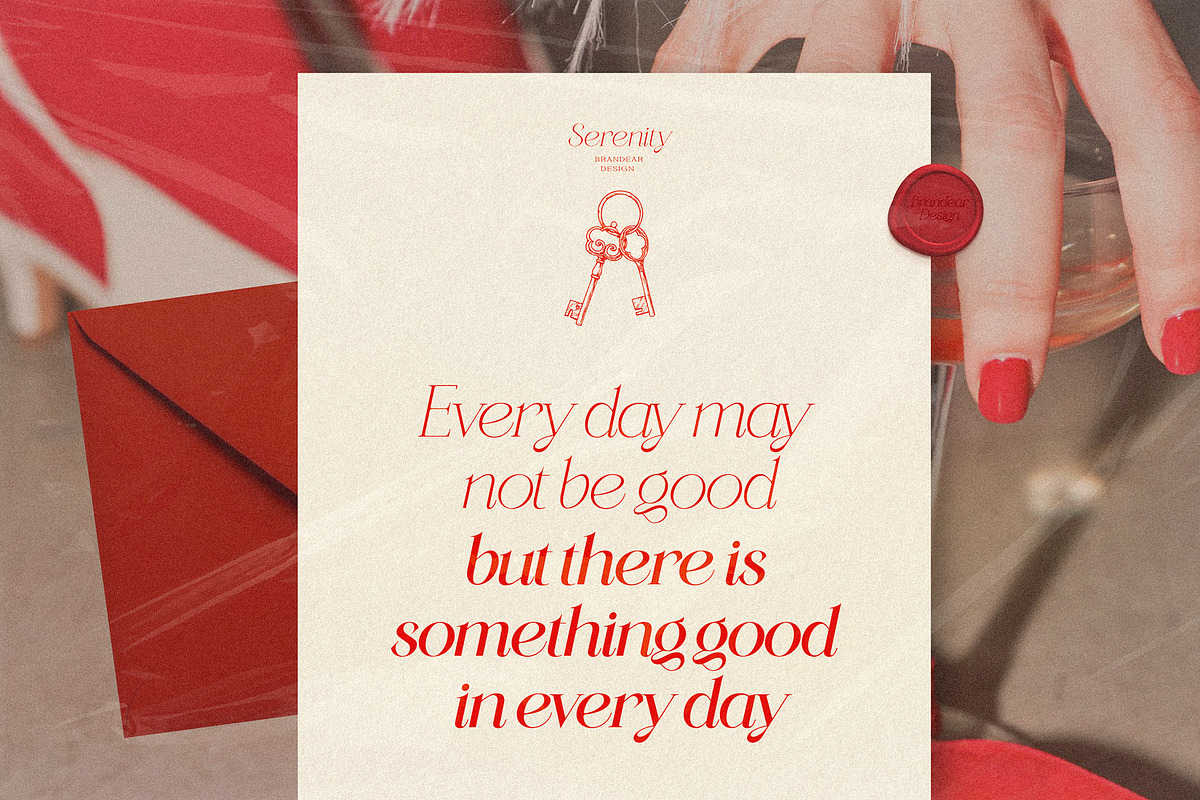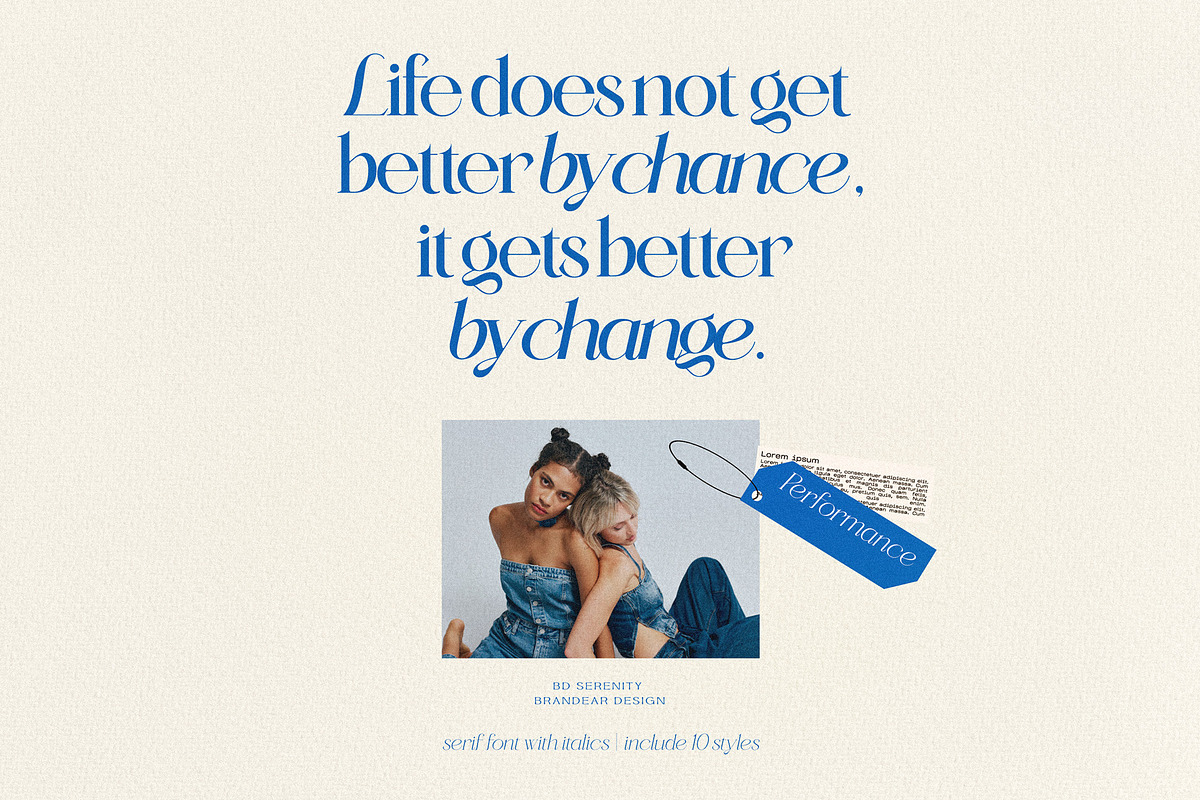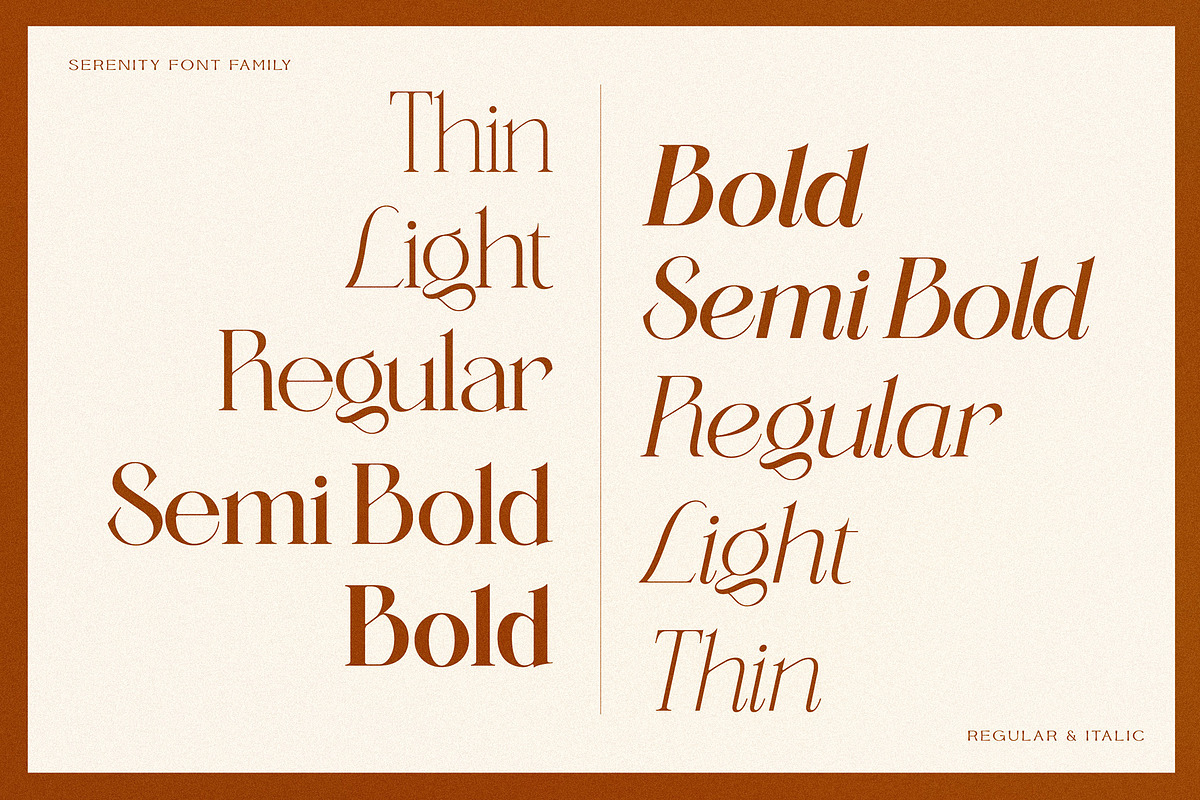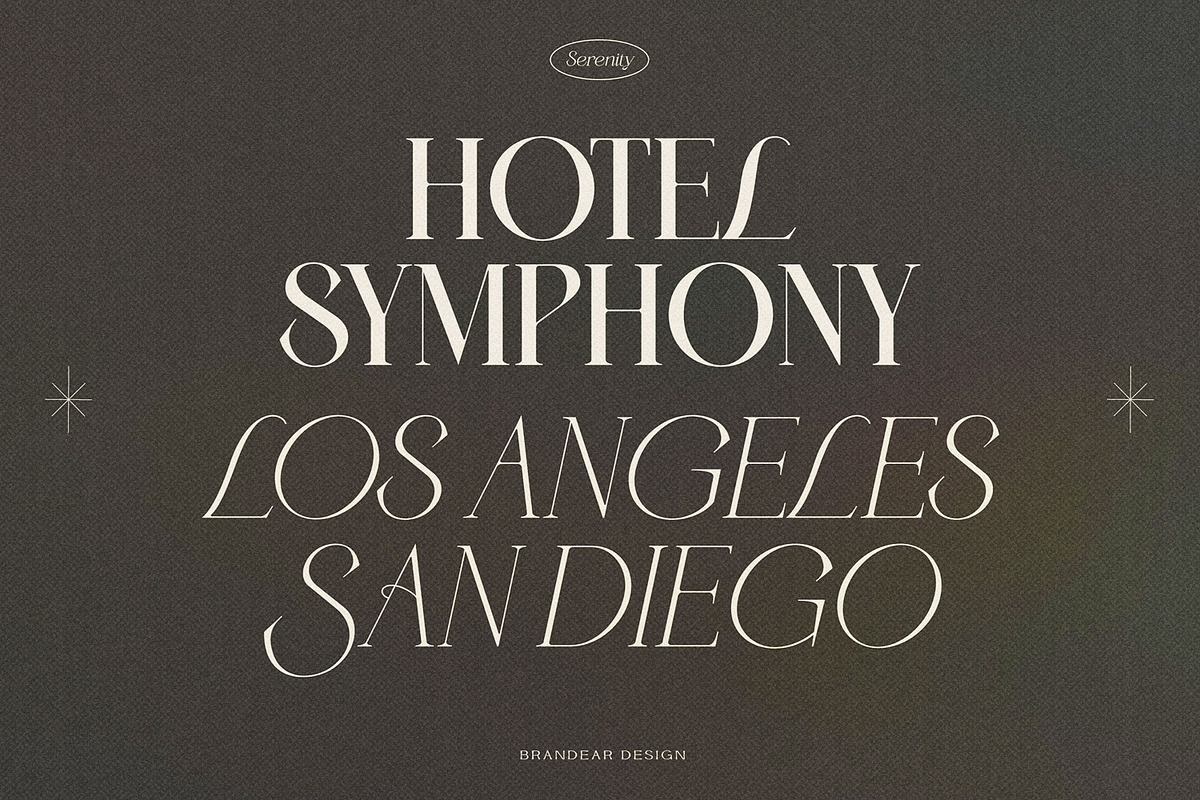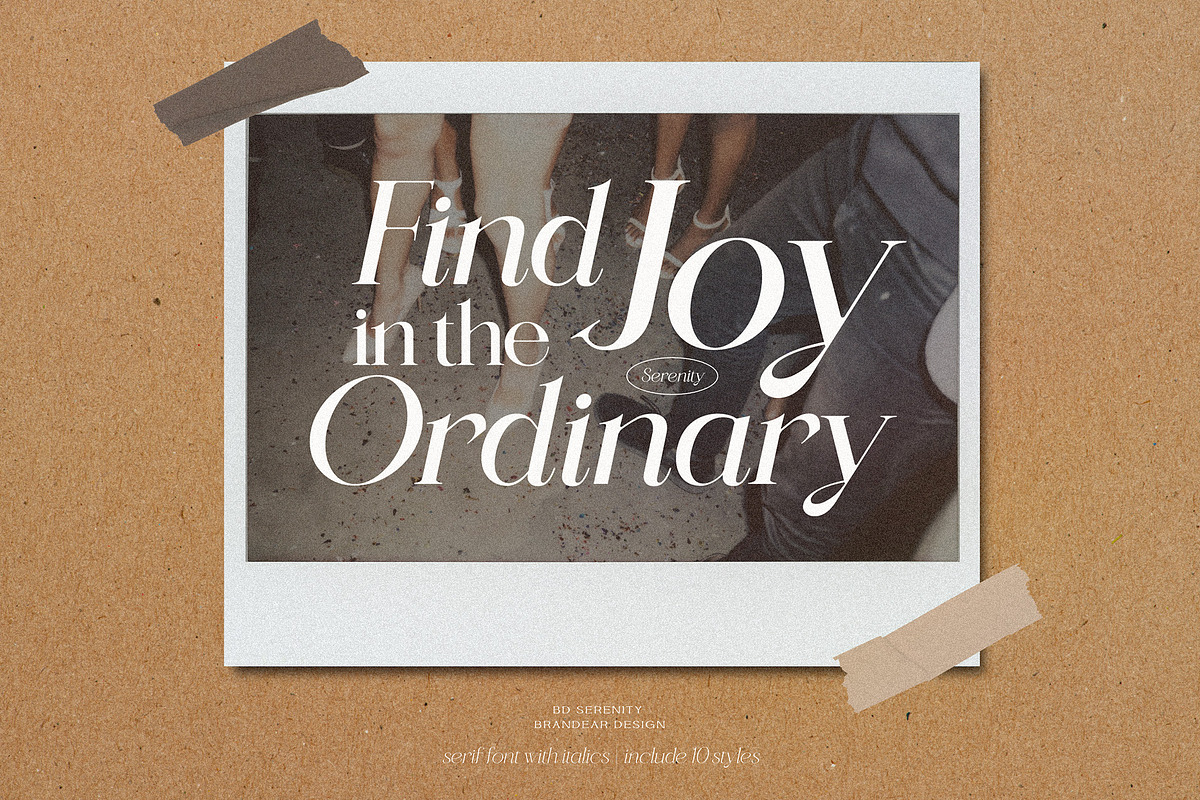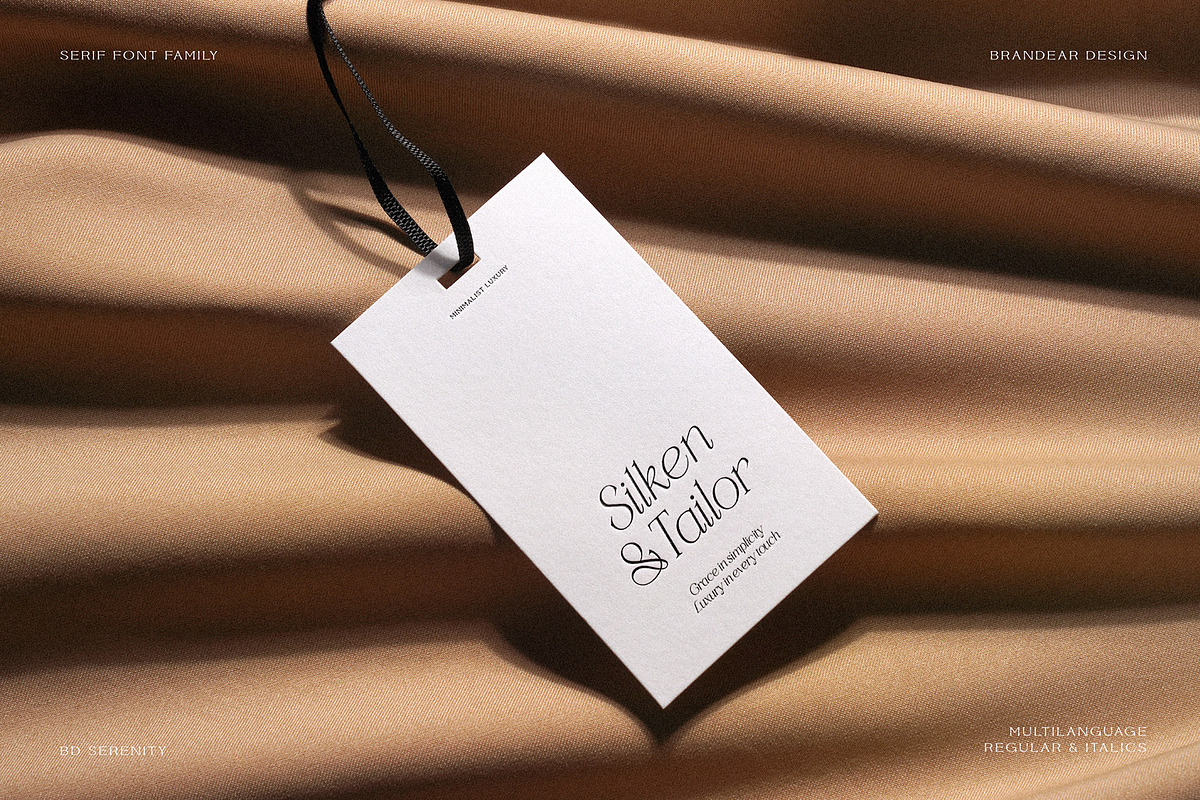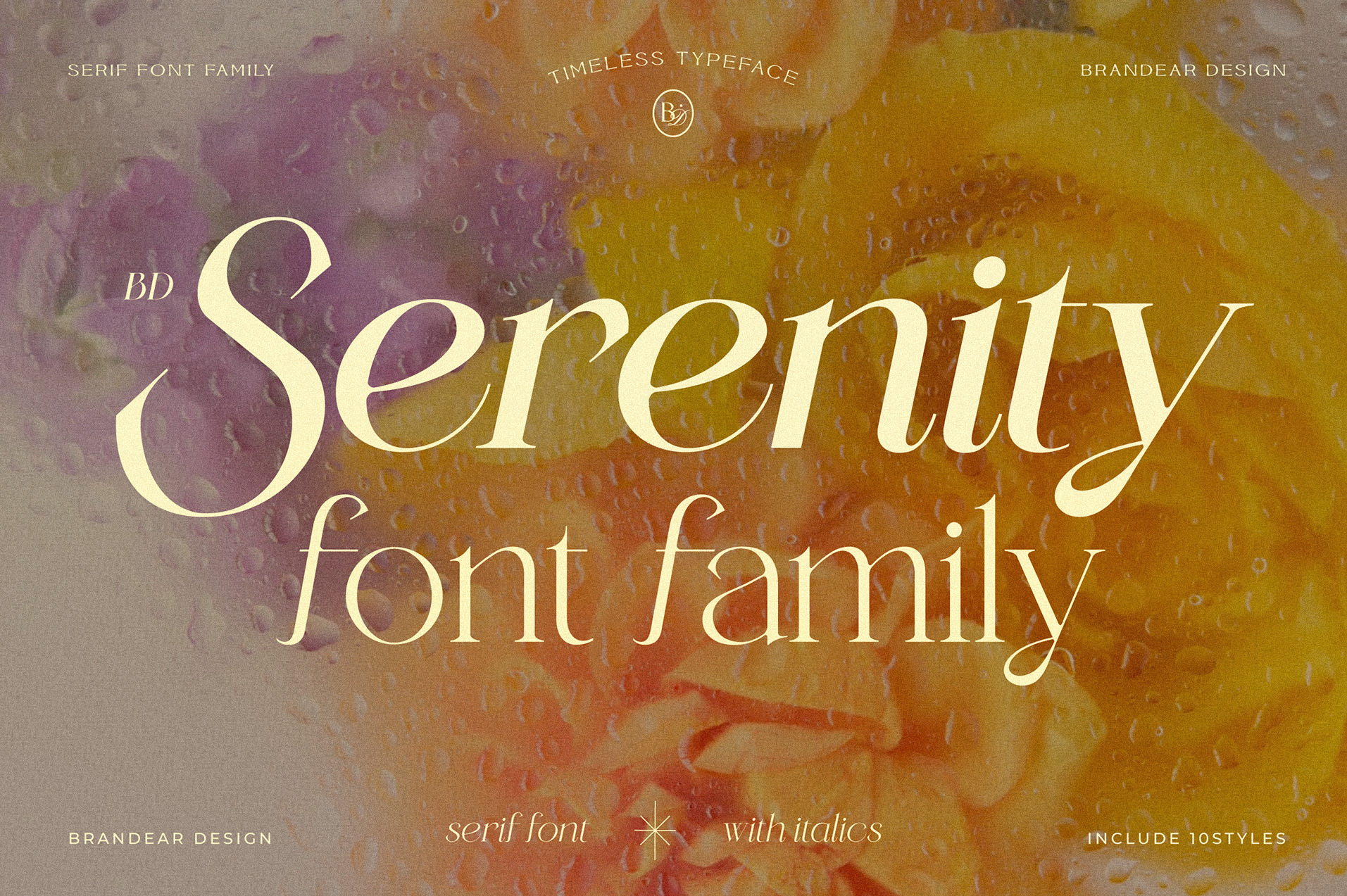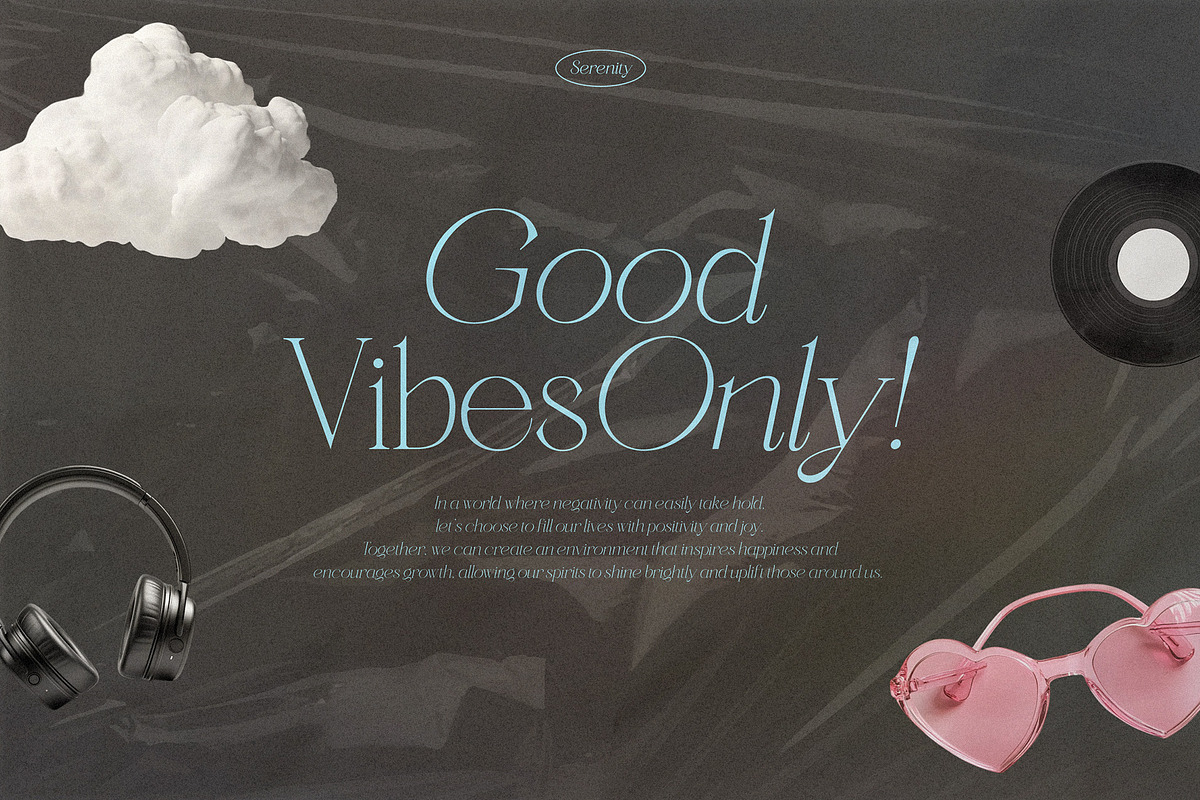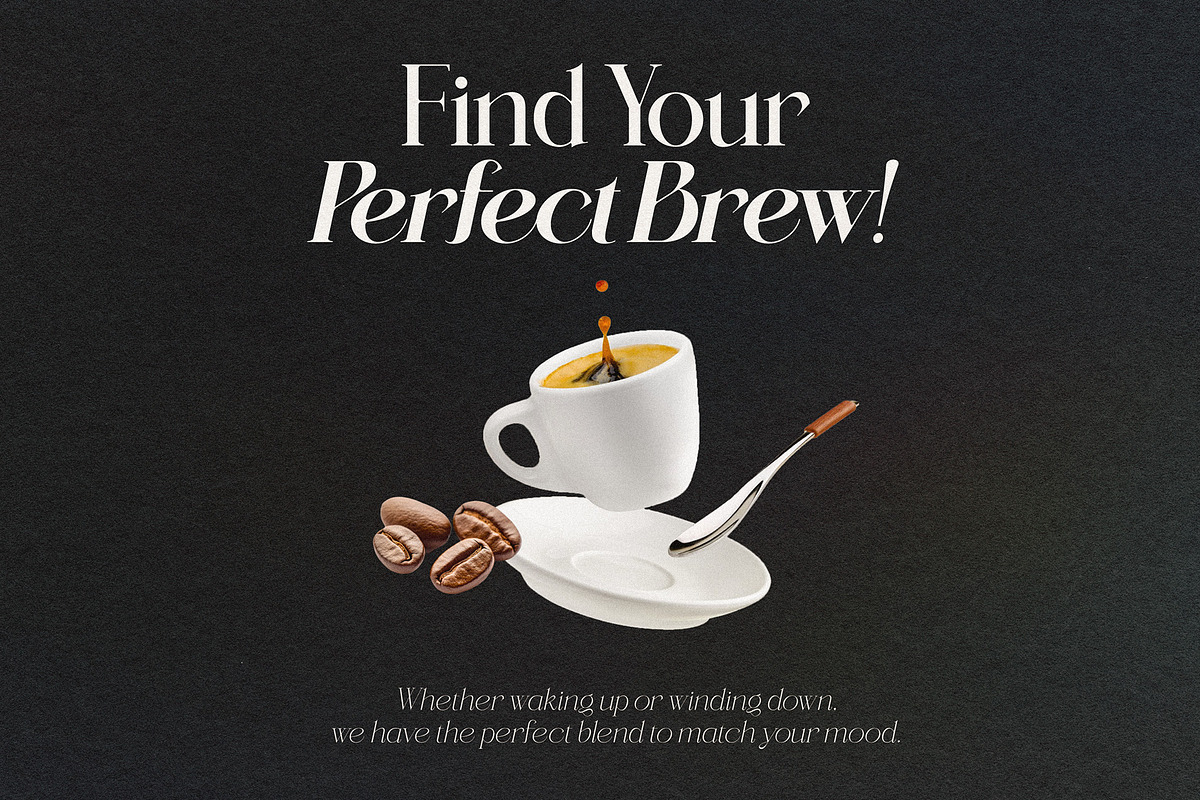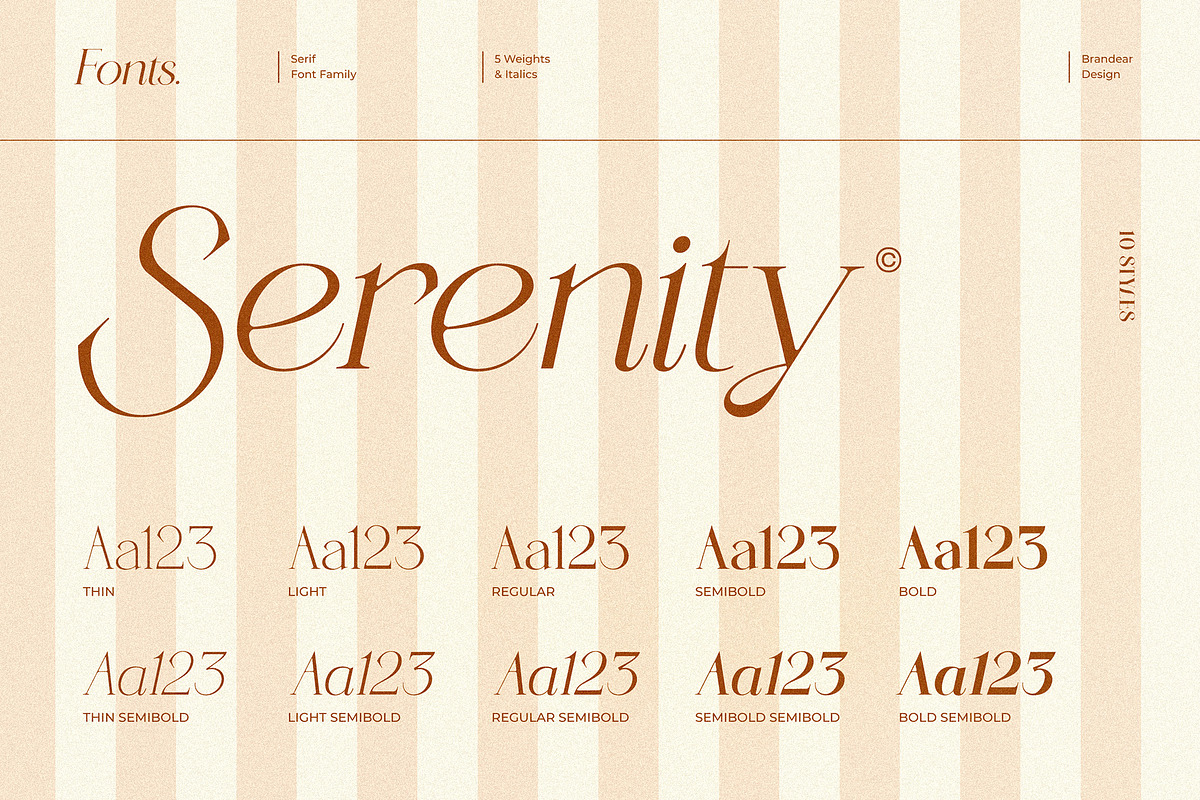
BD Serenity Serif | 10-Font Family
Say hello to Serenity!
This serif font is designed with a sense of calm and elegance in mind. Available in both regular and italic styles, it offers five distinct weights, making it versatile for a range of design projects.
Serenity features smooth curves and graceful lines, suitable for both headlines and body text. With ten unique styles, it's easy to mix and match to create engaging typographic compositions.
Whether you're working on a magazine layout, a logo design, or a poster, Serenity aims to bring a touch of refinement to your projects. It’s designed to inspire clarity and coherence while being a helpful addition to your creative toolkit.
For optimal legibility, feel free to adjust letter spacing based on your needs: tightening it for impactful titles and loosening it slightly for comfortable reading in body text. I hope you enjoy exploring the possibilities with Serenity!✨